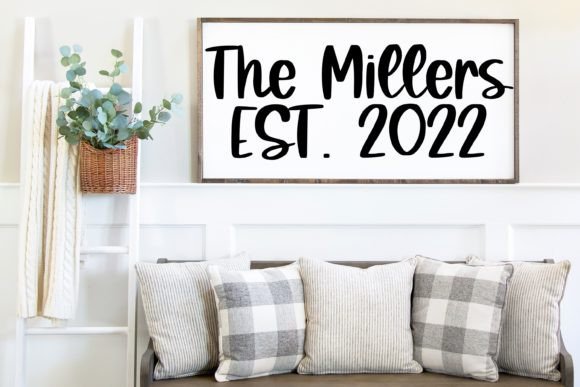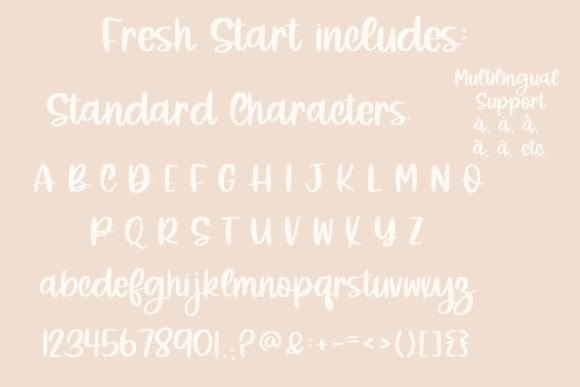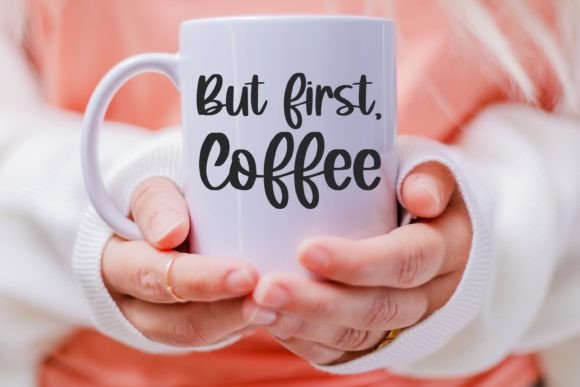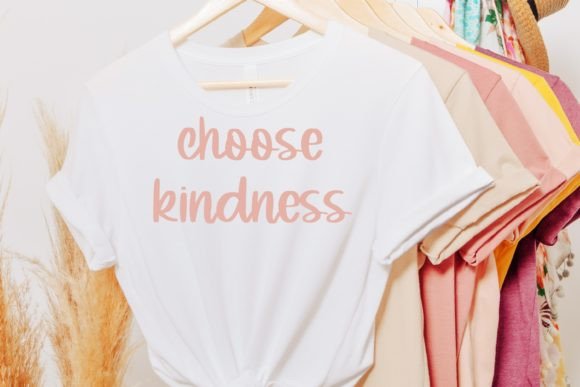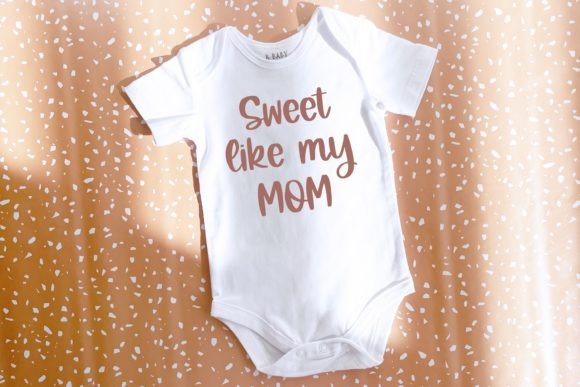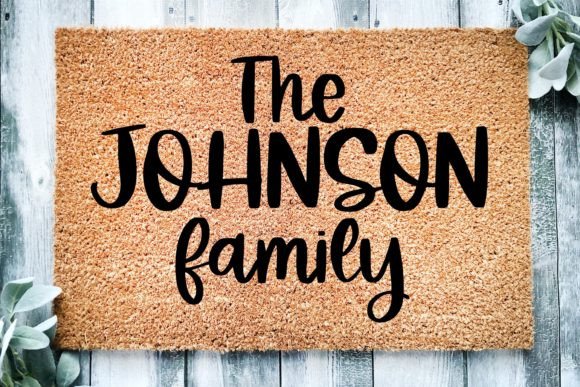
About Fresh Start
Fresh Start is a lovely and friendly handwritten font. Its simple and authentic style makes it incredibly fitting to a large pool of designs. The only limit is your imagination!